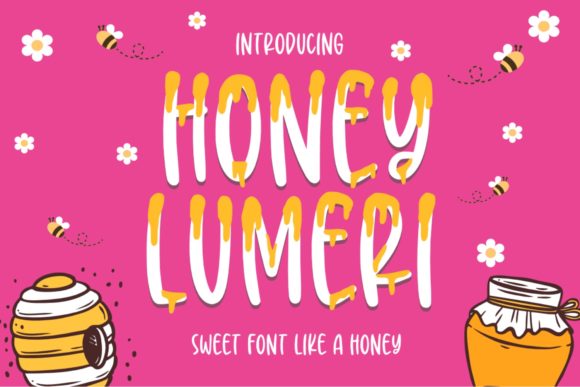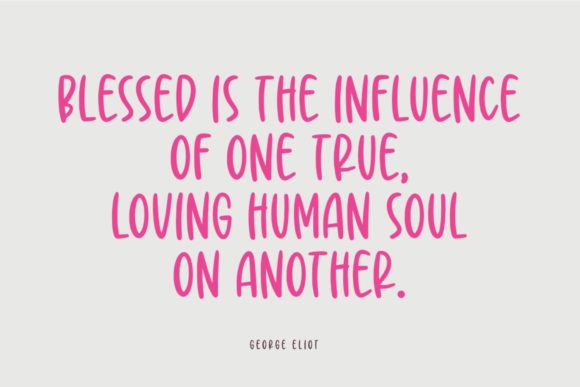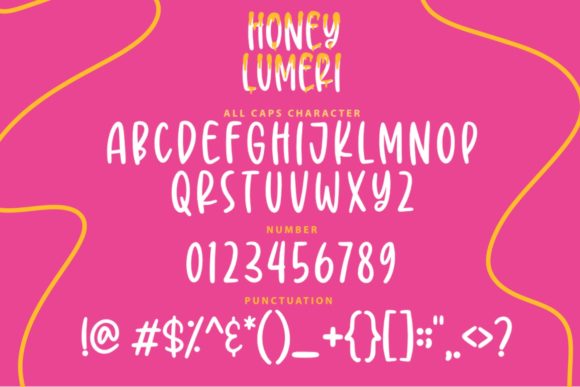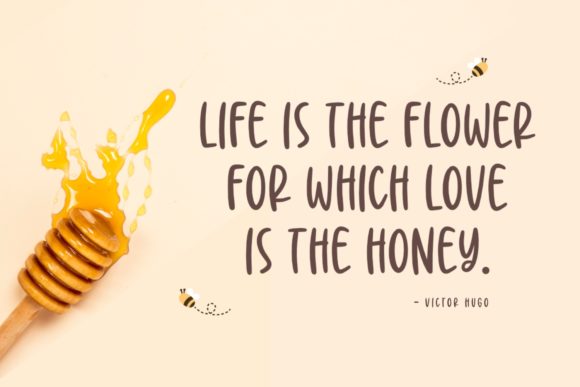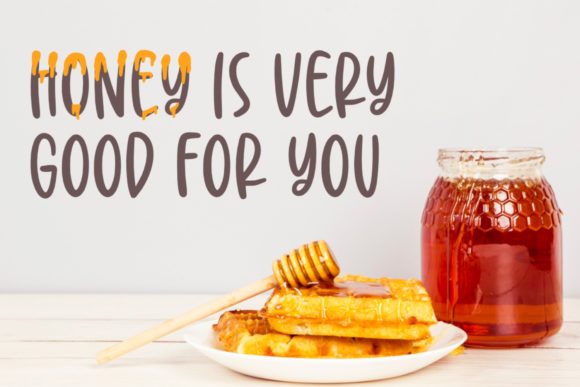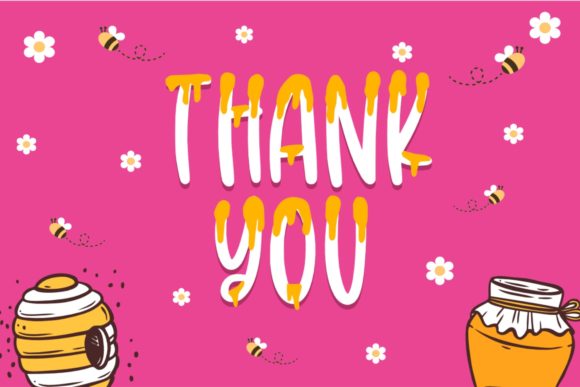
Honey Lumeri Font
About Honey Lumeri Font
Honey Lumeri is a beautiful handwritten font with cute honey elements. This font is suitable for brand logos or any design projects with happy themes.